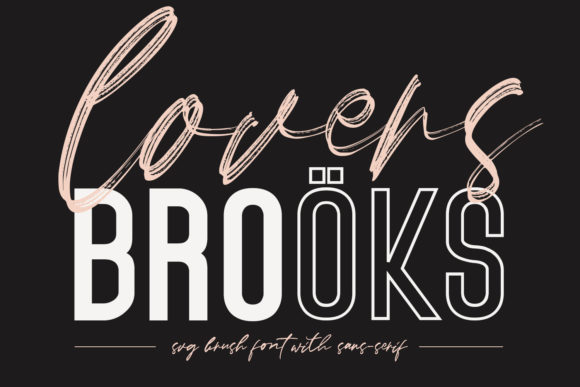
Indulge in the captivating world of Lovers Brooks Font, a stunning display typeface that will ignite your designs with a touch of authenticity and artistry. With its brush-like strokes and captivating charm, this font family embodies the essence of creativity and expression.
Unleash your imagination with five distinct font styles, each meticulously crafted to elevate your projects to new heights. Let the smooth curves and bold strokes of Lovers Brooks Font dance across your designs, creating a lasting impression that will leave your audience spellbound.
Whether you're designing a captivating logo, crafting elegant stationery, or adding a touch of whimsy to your greeting cards, Lovers Brooks Font is the perfect choice. Its versatility knows no bounds, allowing you to weave it seamlessly into any design concept.
Immerse yourself in the enchanting world of Lovers Brooks Font, where creativity flourishes, and designs come alive with a timeless appeal. Download it today and witness the transformative power of this extraordinary typeface firsthand. Let Lovers Brooks Font ignite your passion and leave an enduring legacy in the world of design.